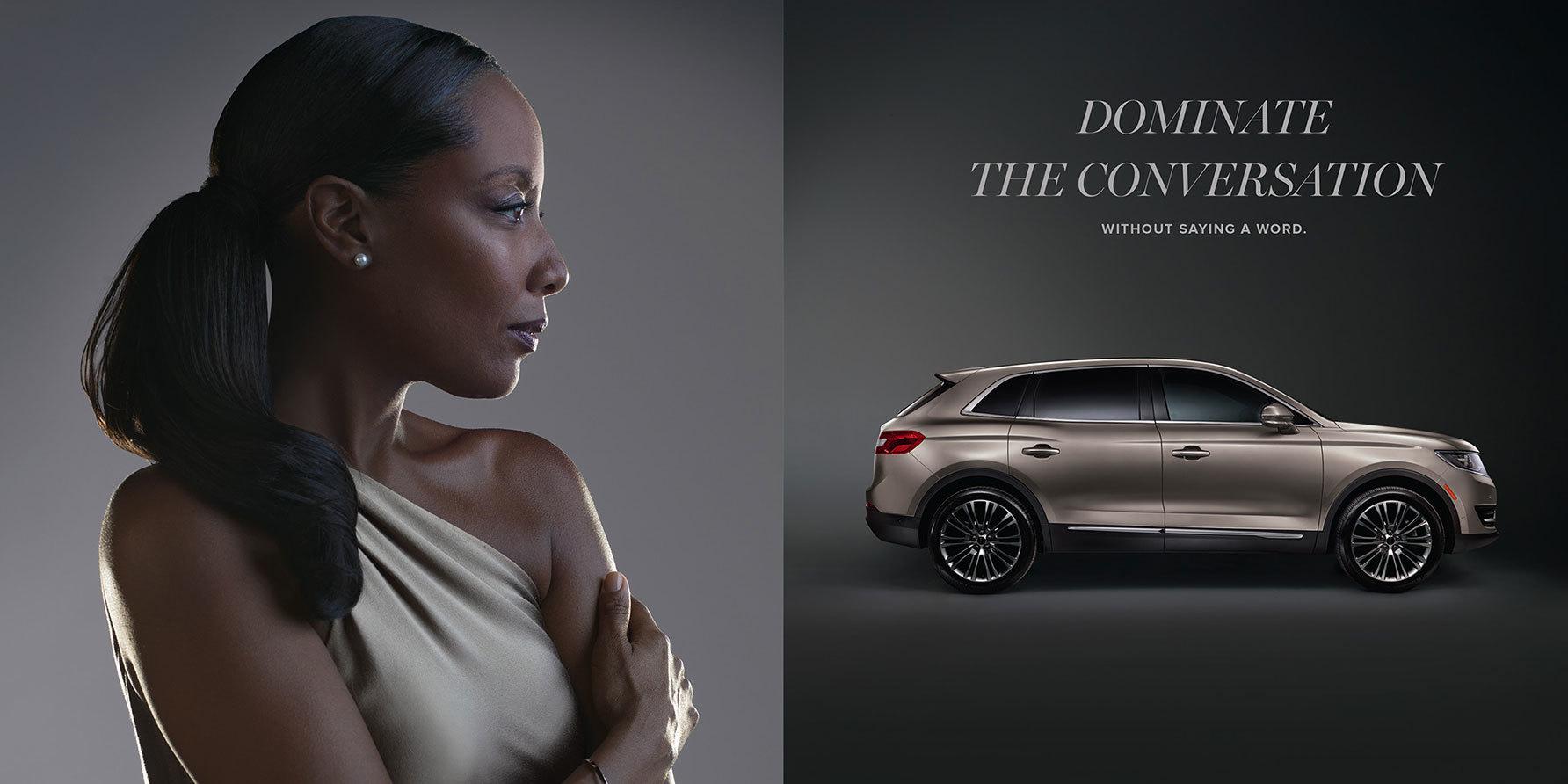
Then a part of the Font Bureau library, Miller Banner is the largest optical size of Miller, Matthew Carter’s interpretation of the Scotch Roman, a class of sturdy, general-purpose type widely used in the US in the nineteenth century. Carter’s design remains faithful to the Scotch style, though it doesn’t follow any single historical example. Back when fonts were produced in metal, the largest optical sizes, with their refined letterforms and breathtakingly thin hairlines and serifs, were regarded as the zenith of typographic elegance and technical proficiency in lettercutting and printing. For Team Detroit, these characteristics perfectly embodied the qualities of the Lincoln brand. Lincoln has used it ever since and the typeface has been featured in many beautiful layouts.